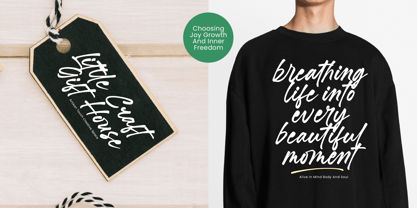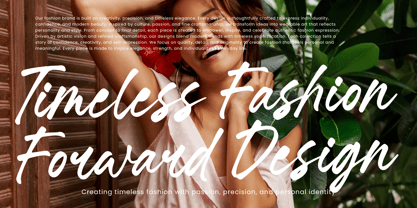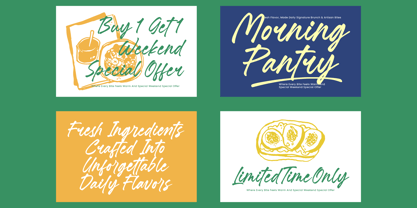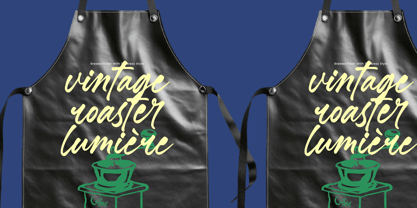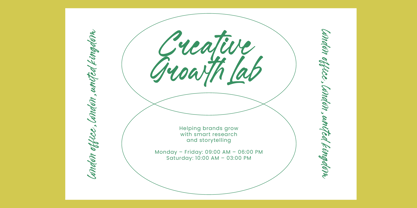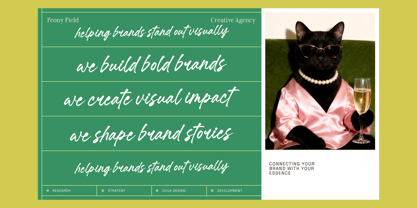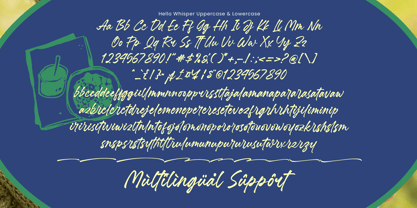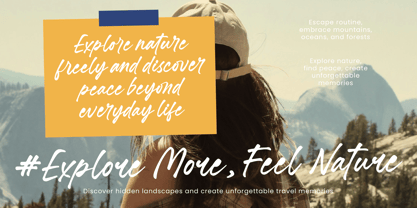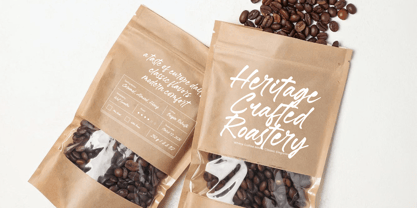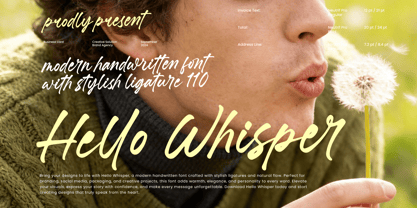
Hello Whisper
by Letterena Studios
The Hello Whisper Font Family was designed by Heru Utama Putra and published by Letterena Studios. Hello Whisper contains 2 styles and family package options. More about this family
Hello Whisper is a modern handwritten script font designed with smooth natural strokes, elegant curves, and a soft flowing rhythm that feels warm, expressive, and effortlessly stylish. The letterforms combine casual brush texture with refined structure, creating a balanced handwritten look that is both personal and professional. Featuring 110 stylish ligatures and multilingual support, Hello Whisper allows seamless letter connections and dynamic typography compositions while maintaining excellent readability. Perfect for branding, social media content, packaging, fashion visuals, invitations, editorial layouts, and lifestyle projects, this font adds warmth and authenticity to every design. Optimized for both print and digital use, Hello Whisper is ideal for designers seeking a modern handwritten typeface that blends elegance, personality, and natural flow.